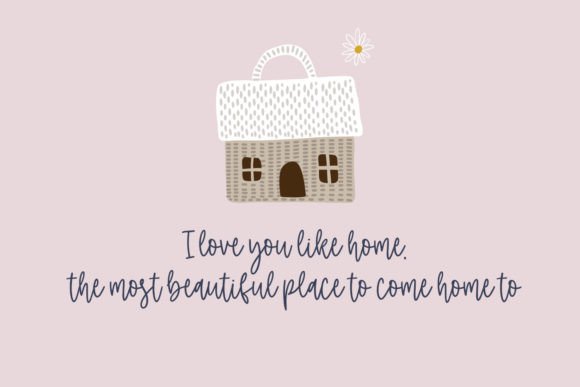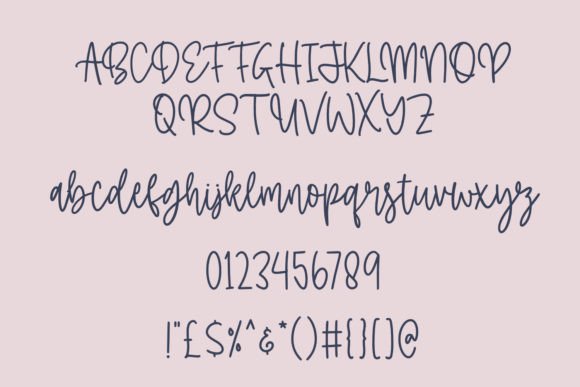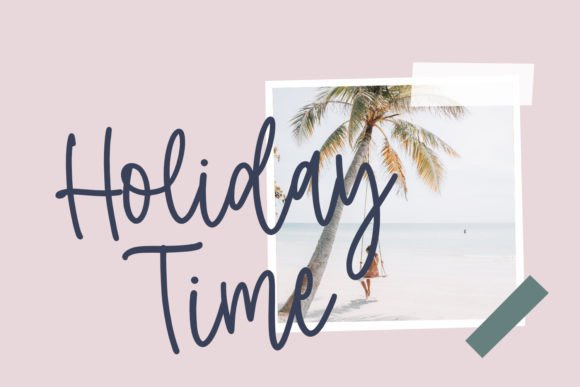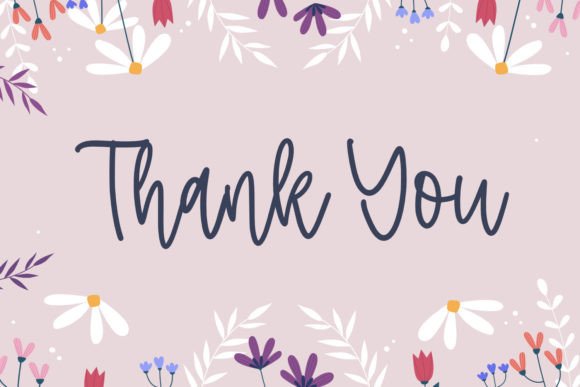
The Quest for the Perfect Font: Discovering Ayovita
I’ll never forget the time I was working on a web design project for a client’s wedding website. I had all the elements in place – the beautiful images, the elegant layout, and the perfect color scheme. But something was missing. The font I was using just didn’t have that special something that would make the website truly unforgettable. That’s when I stumbled upon Ayovita, a stunning font that would change the game for me and my design projects.
Ayovita: The Perfect Blend of Elegance and Artistry
Ayovita is a beautiful Handwritten script font designed specifically for creative web projects. With its flowing lines and artistic flair, this font exudes an aura of elegance and sophistication. It’s perfect for adding a personal touch to your web designs and making them stand out from the crowd.
My Honest Review of Ayovita
- ✅ Elegant and artistic design that’s perfect for creative projects
- ✅ Wide range of OpenType features, glyphs, and stylistic alternates
- ✅ Easy to read and understand, even in smaller font sizes
- ✅ Highly versatile and can be used for various design projects, from web design to print materials
- ⚠️ Some users may find the font a bit too ornate for very formal or traditional designs
- ⚠️ Limited availability of certain language scripts
The Story Behind Ayovita
Ayovita was designed by a team of creative typographers who wanted to create a font that would capture the essence of artistic expression. Inspired by traditional handwritten scripts, Ayovita was crafted to bring a sense of elegance and sophistication to any design project. Whether you’re a designer, craftsperson, or creative hobbyist, Ayovita is the perfect font to add a personal touch to your work.
Q: What type of projects is Ayovita best suited for?
A: Ayovita is perfect for creative web projects, such as wedding websites, portfolios, and blogs. It’s also great for print materials, like invitations, business cards, and brochures.